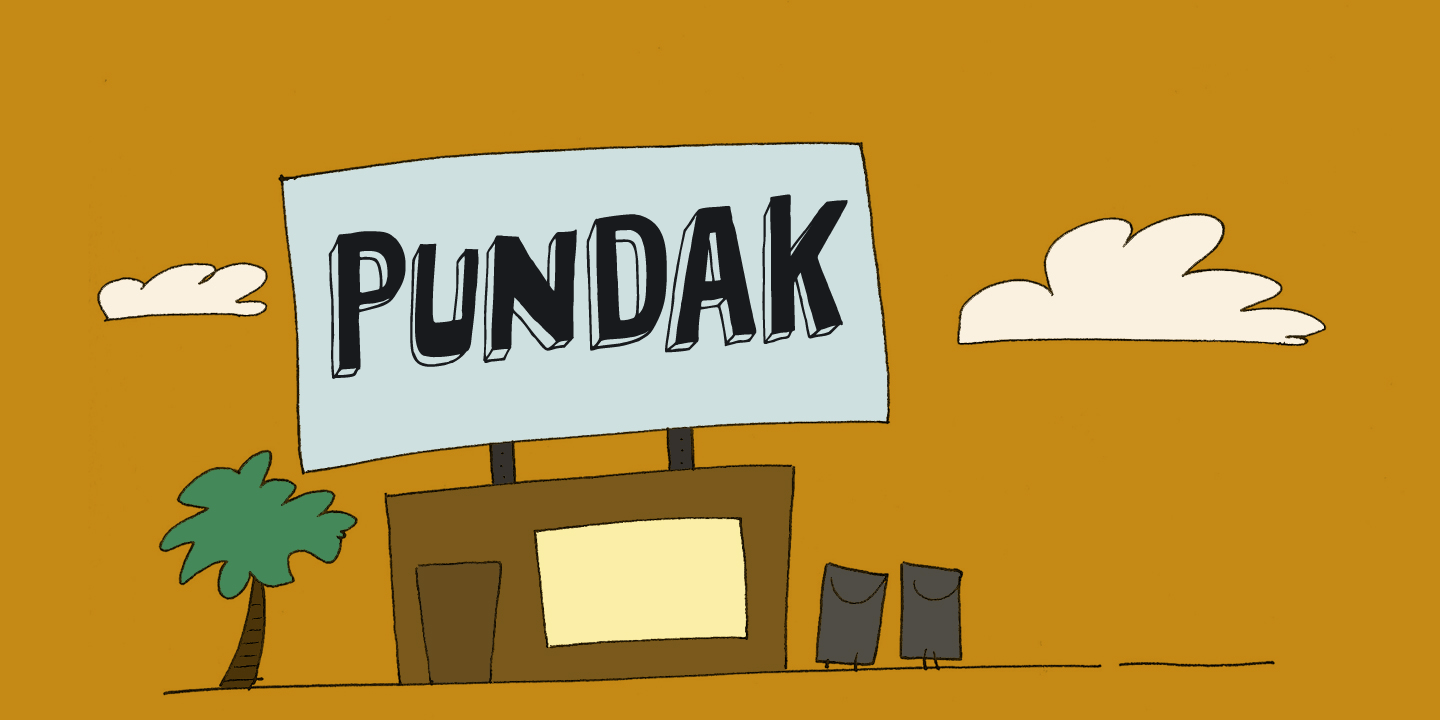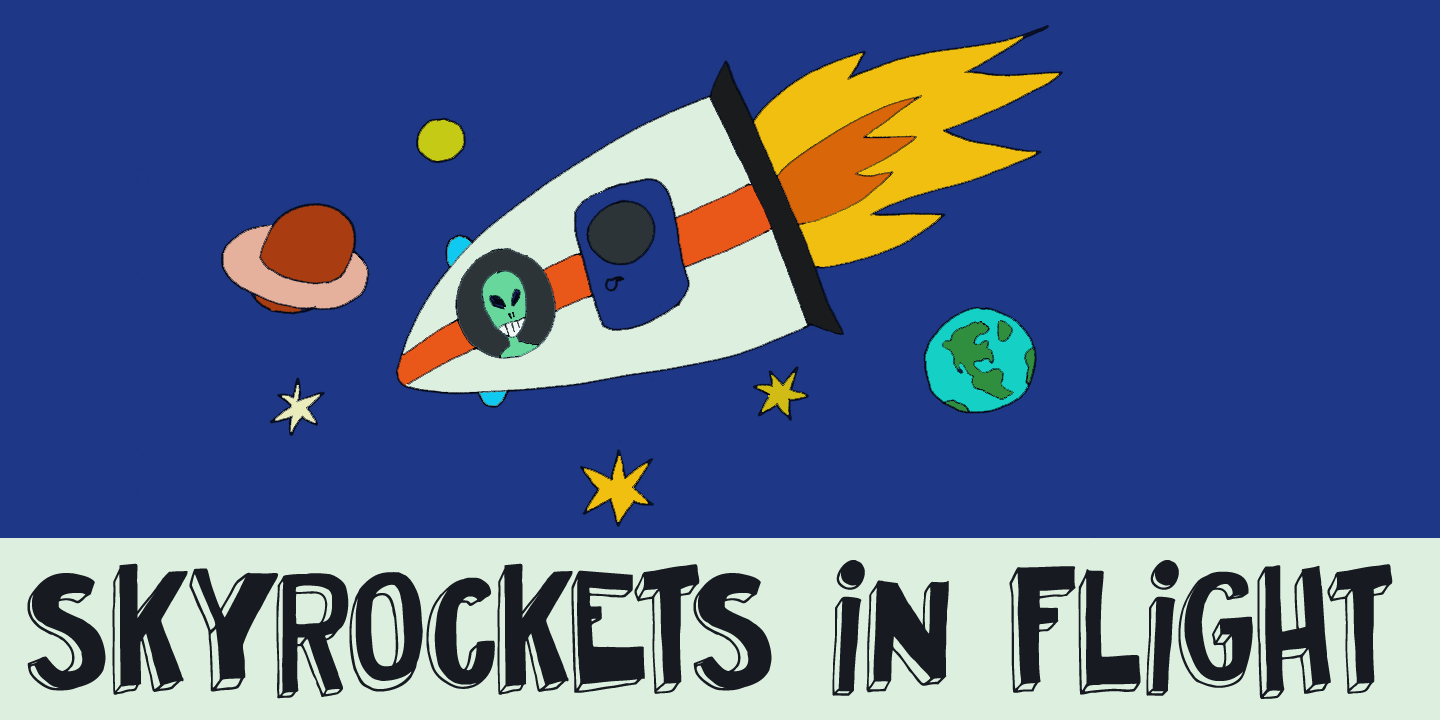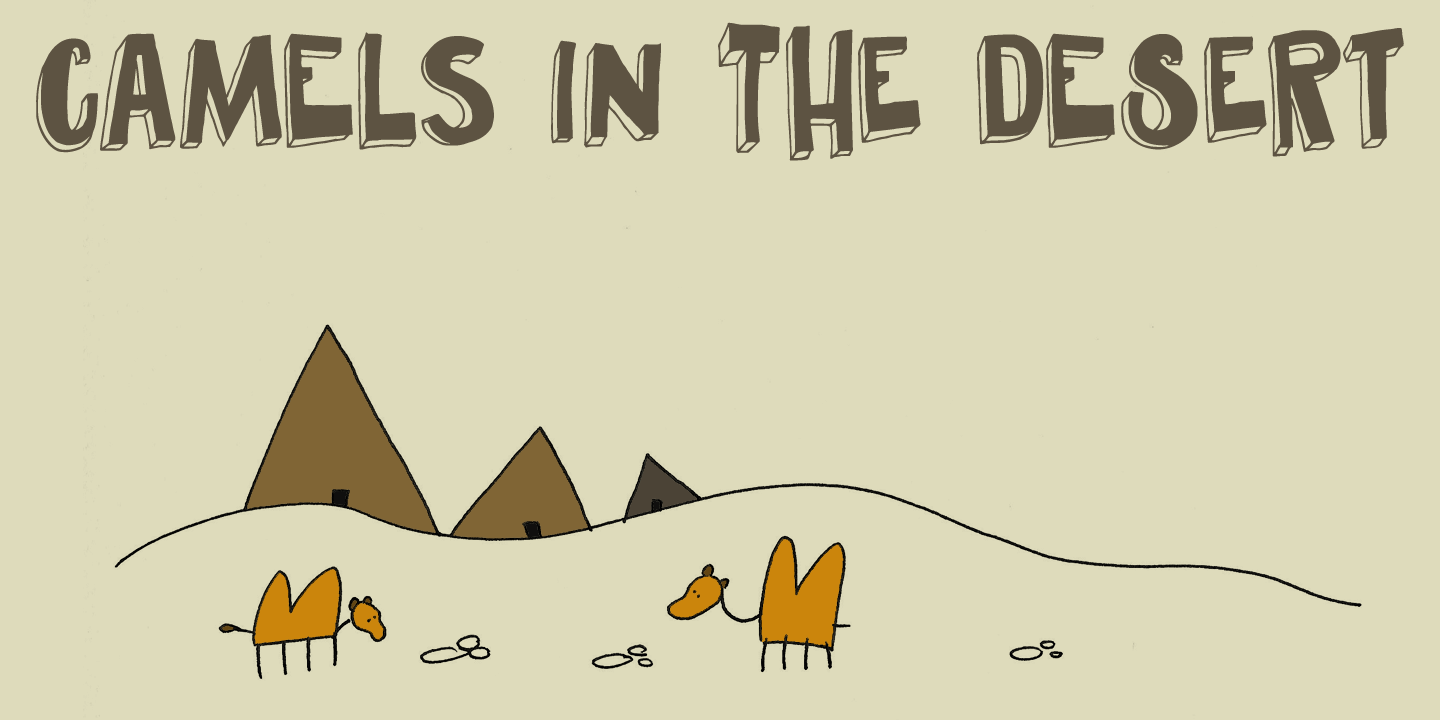
Pundak
A long time ago, I used to work in a Pundak near the Dead Sea. It was a typical halfway restaurant slash gas station and you could order the usual dishes: fries, schnitzel, salad. Of course, this typeface has nothing to do with that Pundak; I just thought about the time I spent there when I created it.
Pundak font is an all caps contoured affair. Ideal for packaging (not just Schnitzels?), headlines and posters. It comes with all the diacritics.